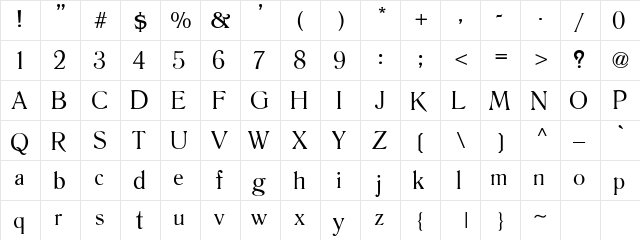
WintersetSSK Regular
Design Context for WintersetSSK Typeface
WintersetSSK offers clean, dependable letterforms without strong stylistic allegiance, making it a practical choice for designers who need flexibility.
Pro Tip: Use WintersetSSK in both headline and body roles to test its range before committing to a single application.